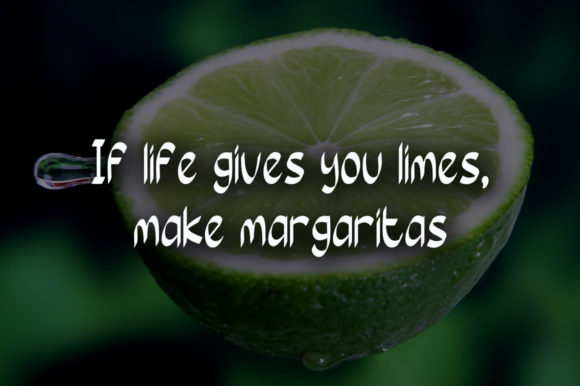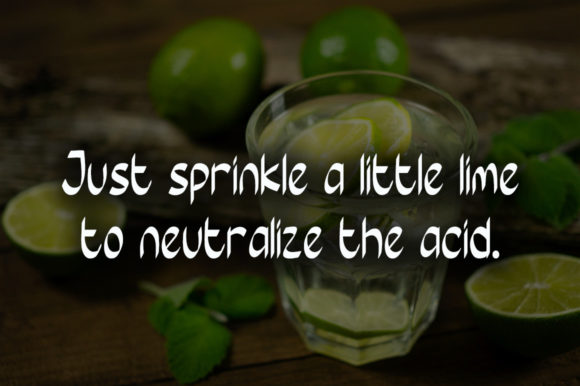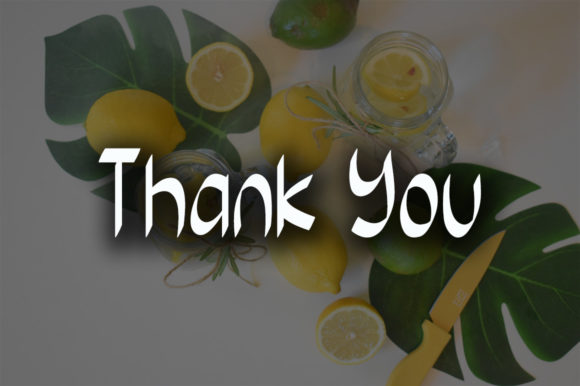
Introduction to Lime Water Font
You’ve spent hours brainstorming and perfecting your creative project, and the final touch is the font that will bring it all together. That’s when you stumble upon it – the perfect combination of style and sophistication. For designers like you, finding the right font can be the difference between a mediocre design and a masterpiece. And that’s where Lime Water Font comes in – a high-quality, free download that will take your creative ideas to new heights.
Lime Water Font is a stunning display font that exudes a cool, modern vibe, perfect for designers who want to add a touch of elegance to their designs. With its well-spaced letters and transparent background, this font is a valuable design resource that will elevate any project.
Key Features of Lime Water Font
- High-quality design resource for creative projects: The Lime Water Font is a unique and elegant font perfect for designers and artists looking for a high-quality design resource.
- Transparent background: The Lime Water Font features a transparent background, allowing designers to easily place it over any image or design without worrying about background issues.
- High-resolution design: The Lime Water Font is designed at a high resolution of 300 DPI, making it perfect for use in print and digital designs.
- Unique characteristics: The font features a unique and elegant design, with a mix of modern and vintage elements that make it stand out from other fonts.
- Perfect for creative projects: The Lime Water Font is ideal for use in creative projects, including branding, advertising, and graphic design.
Honest Review: Lime Water Font
I recently stumbled upon the Lime Water Font, and I must say it’s a great addition to any designer’s arsenal. This high-quality design resource is perfect for anyone working on a creative project that requires a unique and eye-catching font.
Here are some things that work well with the Lime Water Font:
- ✨ The font has a transparent background, making it easy to use in various design contexts.
- ✨ The font is highly customizable, allowing designers to adjust its appearance to suit their project’s needs.
- ⚠️ The font may not be suitable for very small text sizes, as it can become difficult to read.
- ⚠️ The font’s unique design may not be to everyone’s taste, so it’s essential to test it in different contexts before committing to its use.
Overall, I’m impressed with the Lime Water Font. It’s a great design resource that can add a touch of creativity to any project. Just be aware of its limitations and use it wisely.
The Lime Water Font is suitable for a wide range of creative projects, including branding, marketing materials, and social media graphics. Its high-quality design and transparent background make it an ideal choice for designers and non-designers alike.